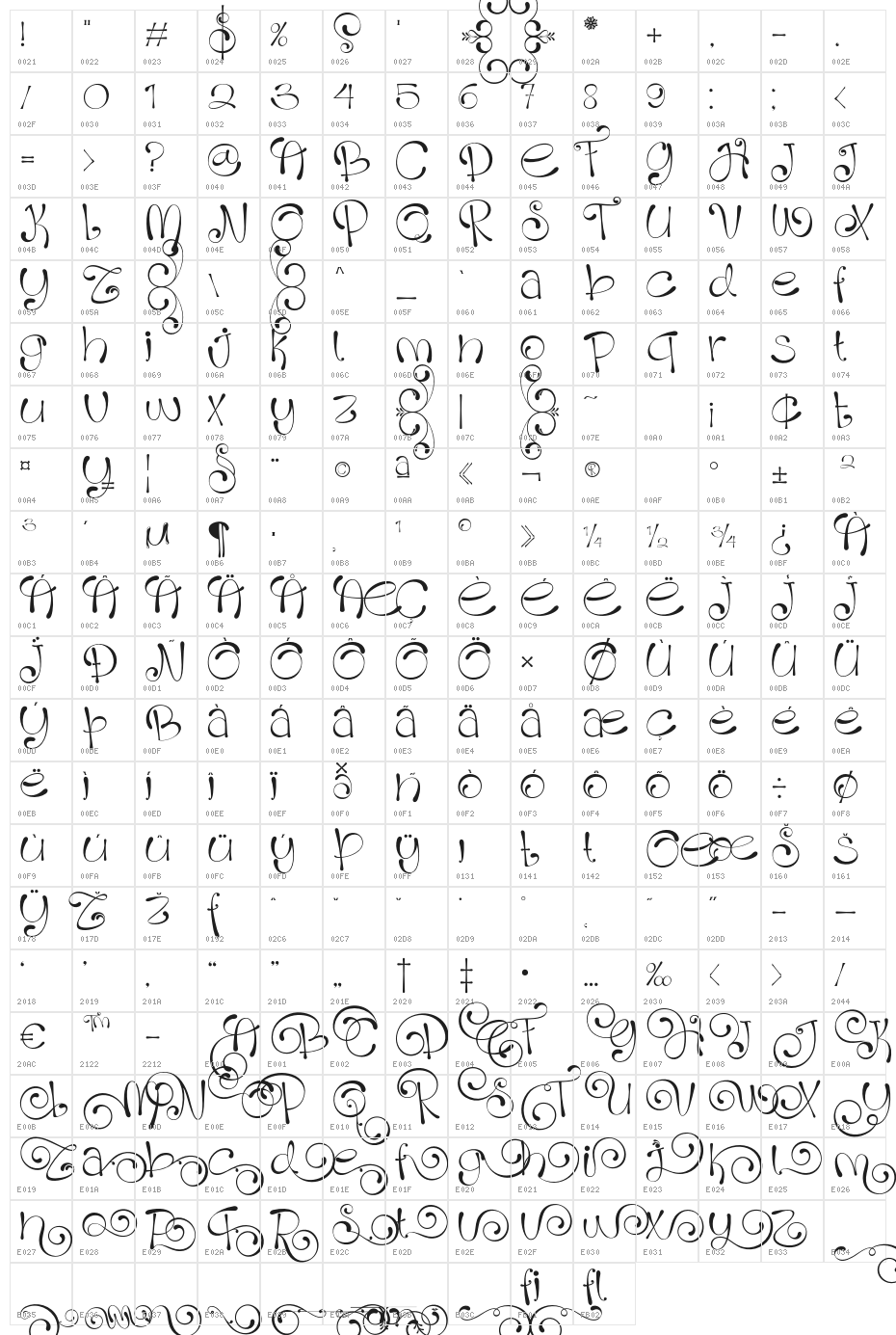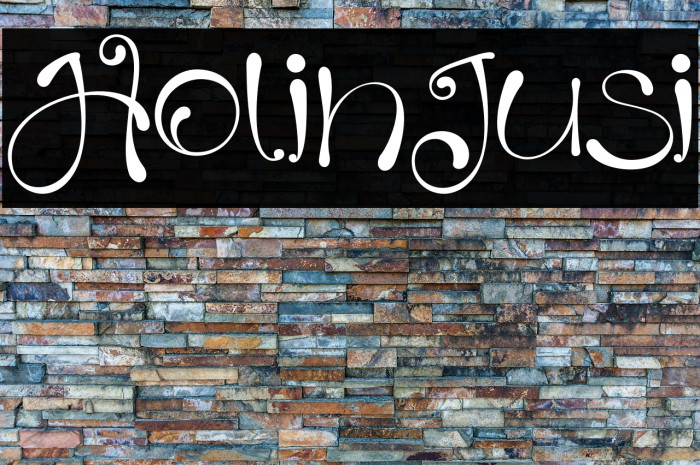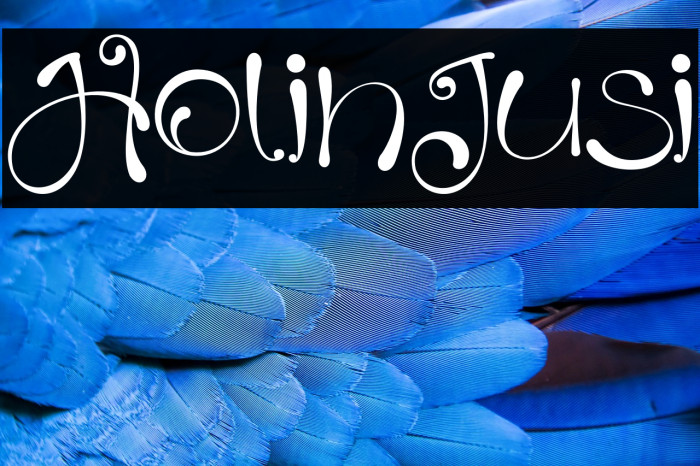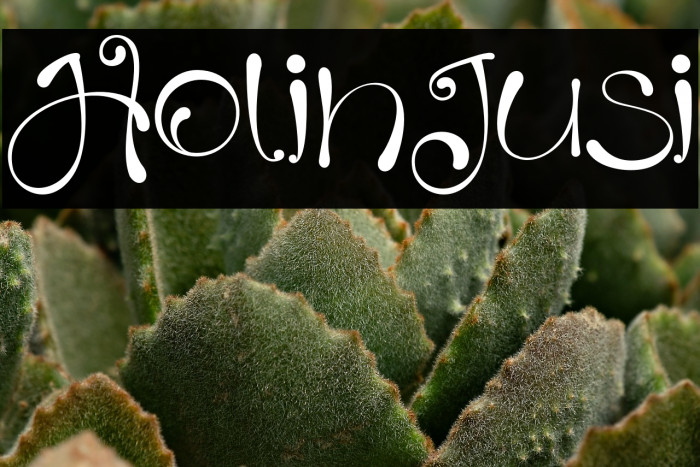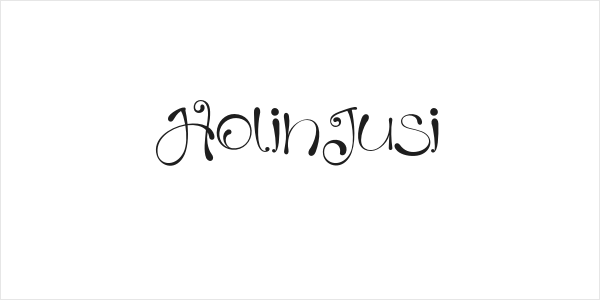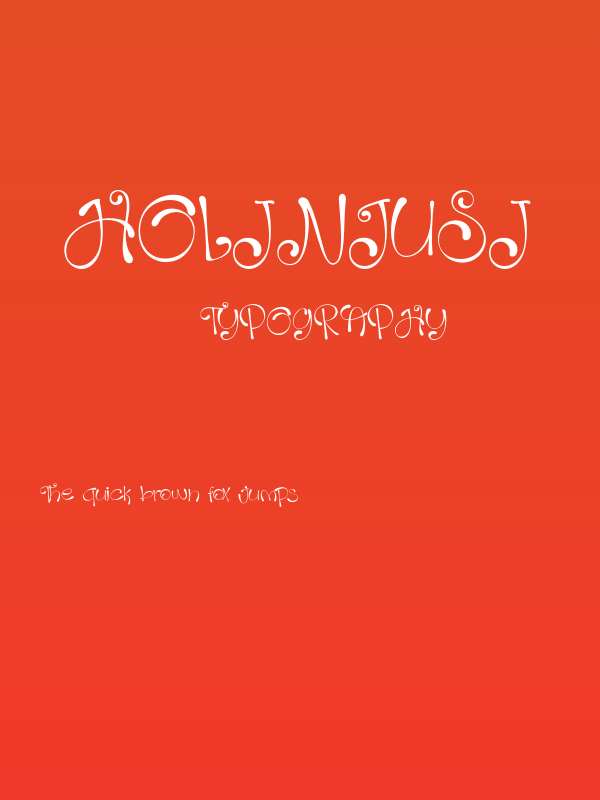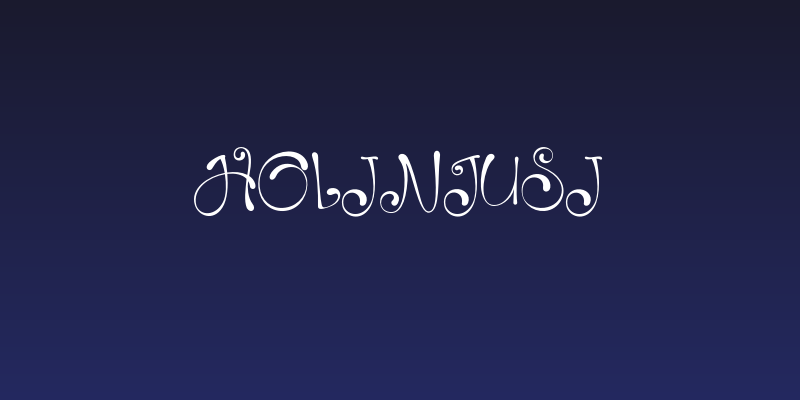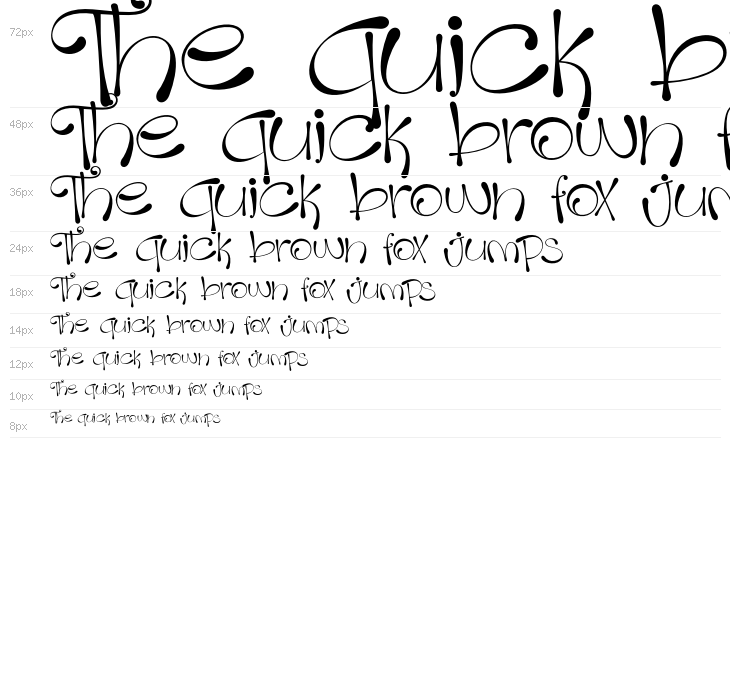
HolinJusi Font
HolinJusi Description
This font features a whimsical and decorative style, characterized by its playful curves and elegant swirls. Each letter is uniquely crafted with a blend of thick and thin strokes, creating a dynamic and artistic appearance. The uppercase letters are particularly ornate, with flourishes that extend beyond the standard letterform, while the lowercase letters maintain a more subtle yet still decorative style. Numbers and special characters follow the same artistic theme, making this font suitable for creative and expressive design projects. The overall look is both modern and artistic, perfect for adding a touch of flair to any text.
Use CaseHeadlines, Logos, Artistic projects
Proposed ProjectsIdeal for invitations, greeting cards, artistic posters, and branding materials that require a creative touch.